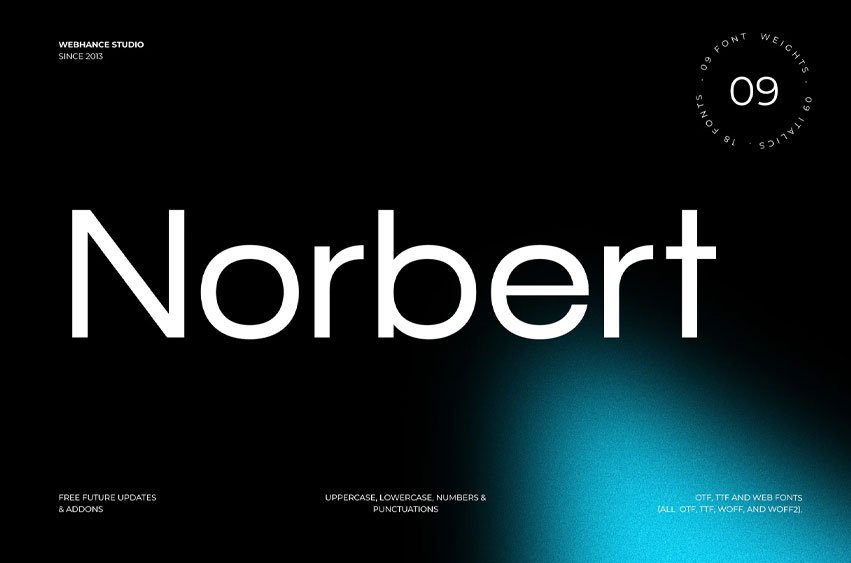
Norbert Font
Norbert Font is a modern sans-serif font family designed for clarity, confidence, and flexible everyday use. Its clean letterforms, balanced proportions, and strong visual presence make it suitable for branding, interfaces, editorial layouts, and digital products.
Built with readability in mind, Norbert performs well across different sizes and design contexts. It works especially well for websites, UI systems, posters, headlines, dashboards, and brand identities where structure and modern simplicity are important.
The typeface includes uppercase, lowercase, numbers, punctuation, and essential multilingual characters, making it practical for professional design use across a wide range of projects.
The family features 9 weights, giving designers the flexibility to create clear hierarchy, strong headlines, readable body text, and refined typographic systems. Whether used for modern brands, digital interfaces, or visual communication, Norbert offers a clean and dependable sans-serif foundation.